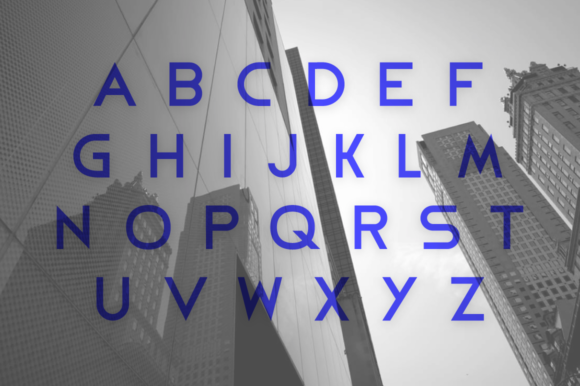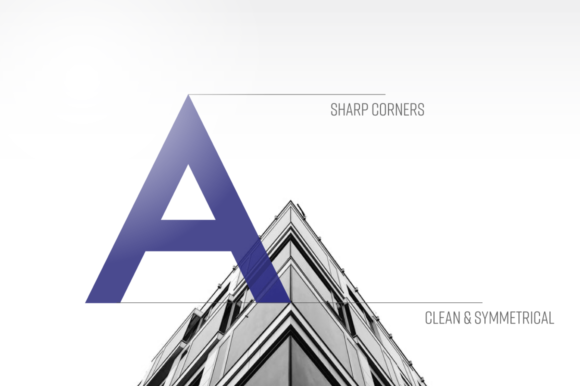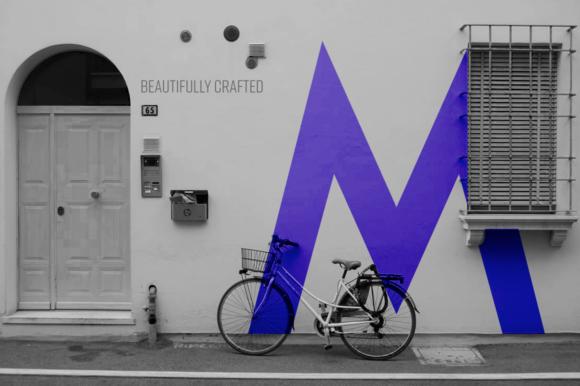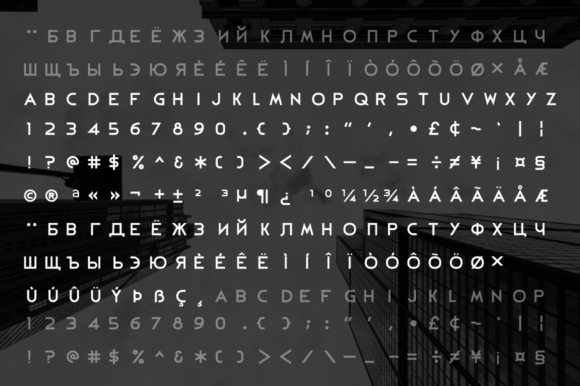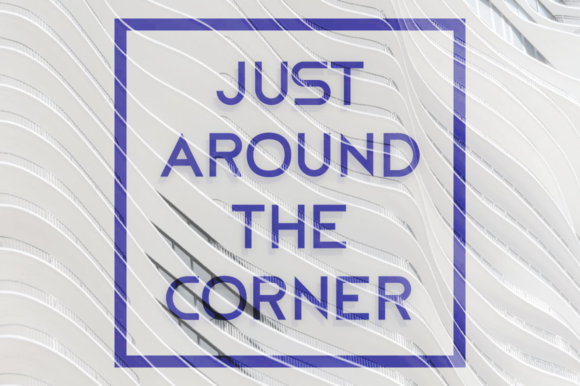
Introduction to Landor Font
As designers, we’ve all been there – staring at a blank page, struggling to find the perfect font to bring our creative project to life. The right font can make all the difference, elevating our designs from bland to grand. And that’s exactly where the Landor Font comes in – a stunning sans-serif font that’s perfect for headlines and titles.
With its sharp corners and balanced symmetry, the Landor Font is a game-changer for designers looking to add a touch of luxury to their work. Whether you’re working on a high-end branding project or a free download for a design resource, this font is sure to impress. Its versatility makes it a valuable addition to any designer’s toolkit, and its high quality ensures that it will stand the test of time.
So, what makes the Landor Font so special? Let’s dive in and explore the world of this gorgeous typeface, and discover why it’s a must-have for any serious designer.
Key Features of Landor Font
- High-quality, professional font design ideal for creative projects and presentations
- Unique characteristics include a modern, clean aesthetic and a wide range of customizable options
- Perfect for designers and artists looking for a high-quality, free design resource for their creative project
- Supports multiple languages, making it a versatile font for global design applications
Honest Review: Landor Font
I recently had the chance to work with the Landor Font in a creative project and was impressed with its quality. This font is a great addition to any designer’s toolkit, offering a unique aesthetic that’s perfect for those looking to add some sophistication to their designs.
The Landor Font comes with a transparent background, making it easy to integrate into any design resource. The high-quality design ensures that it looks great at any size, making it a versatile option for a variety of applications.
What works well: ✨ High-quality design, ✨ transparent background, ✨ great for creating a sophisticated aesthetic.
- ✨ Perfect for designers looking to add a touch of elegance to their work
- ✨ Can be used for a wide range of creative projects
- ✨ Great for designers who need a font with a unique aesthetic
Limitations: ⚠️ The font may not be suitable for all types of designs, particularly those that require a more playful or casual tone.